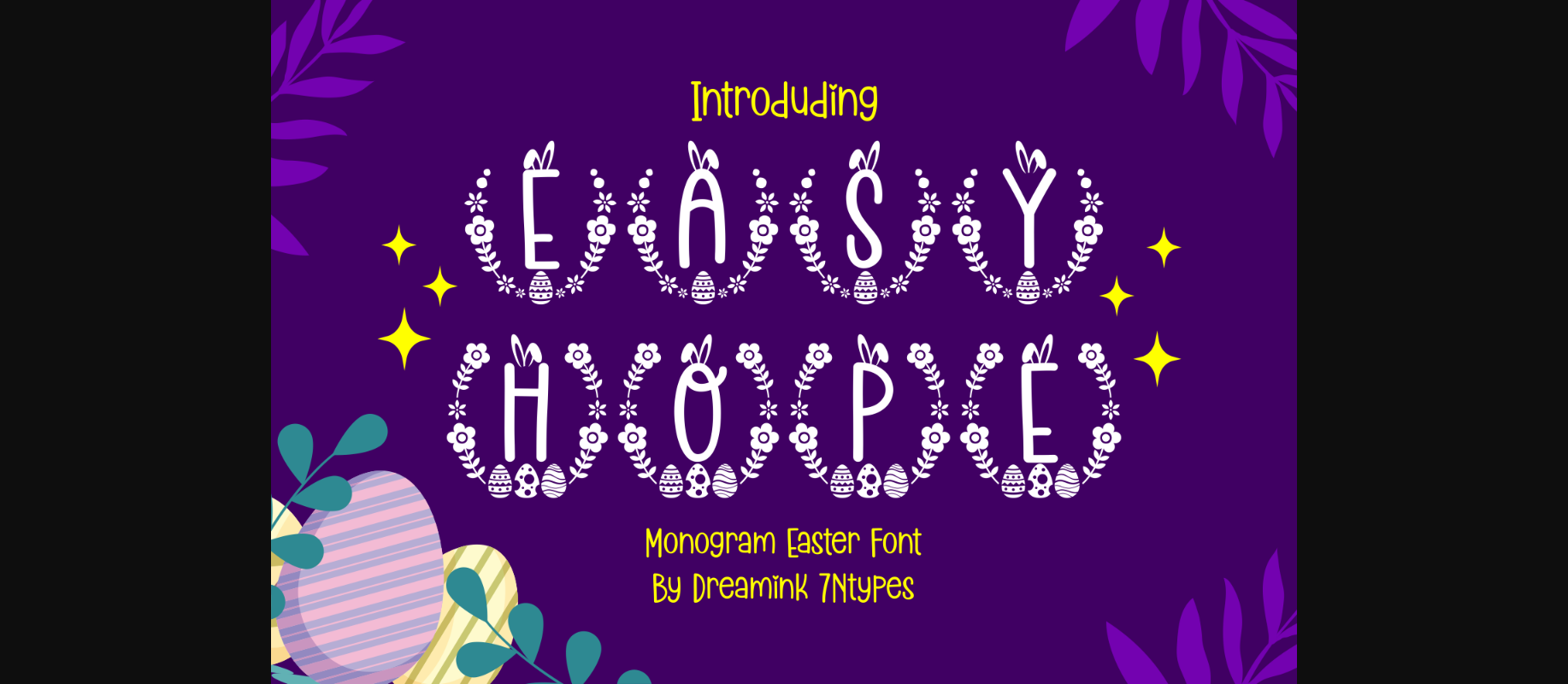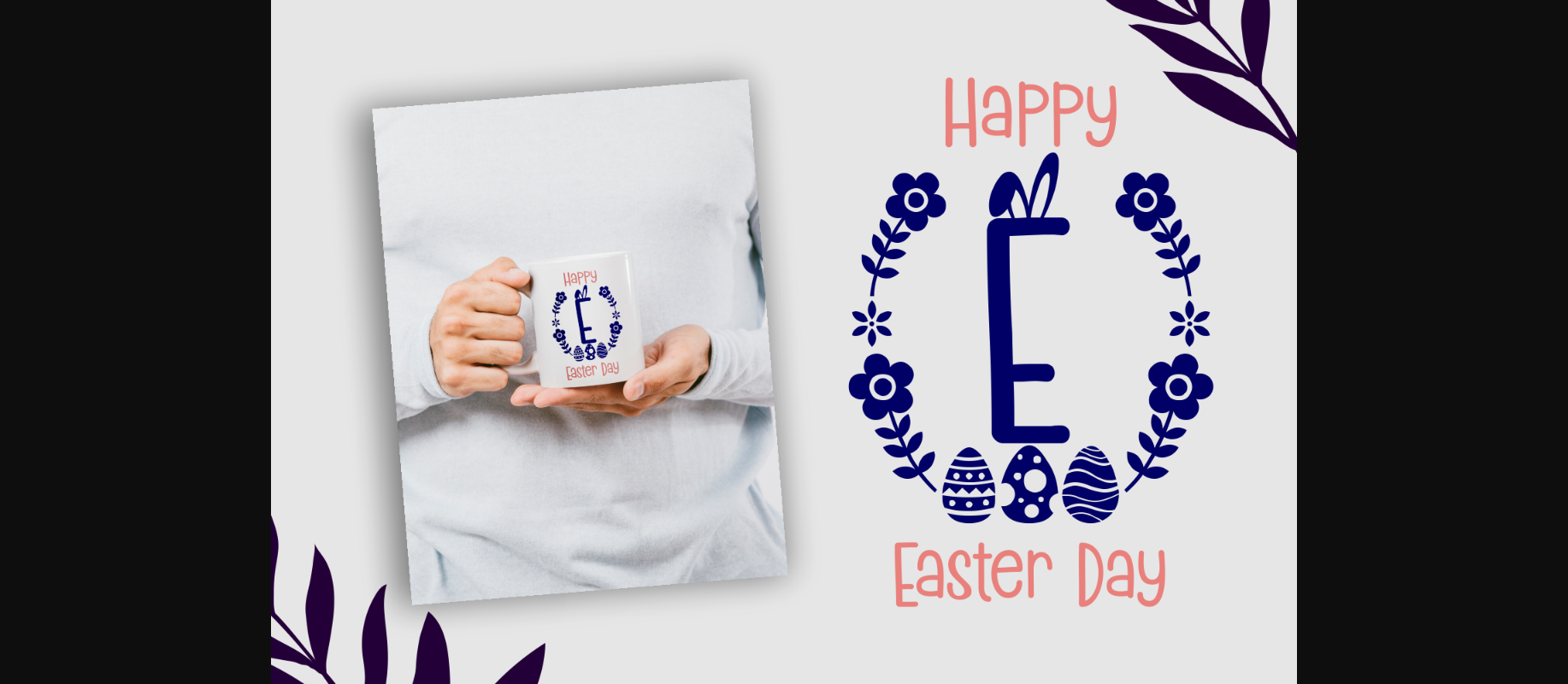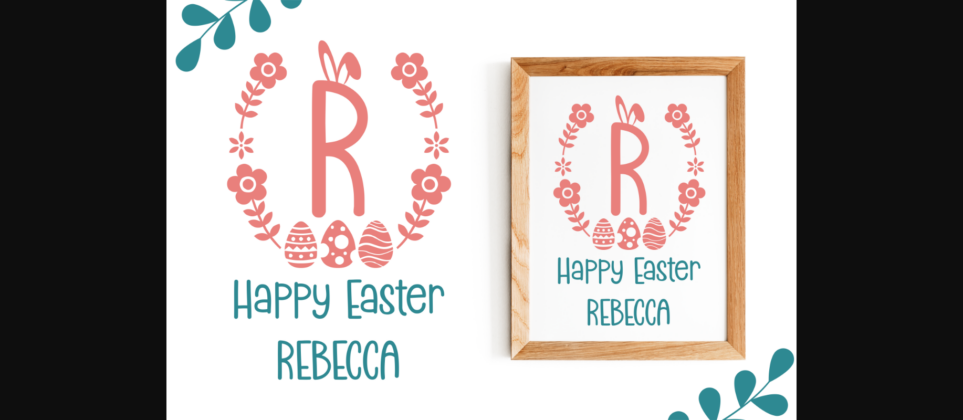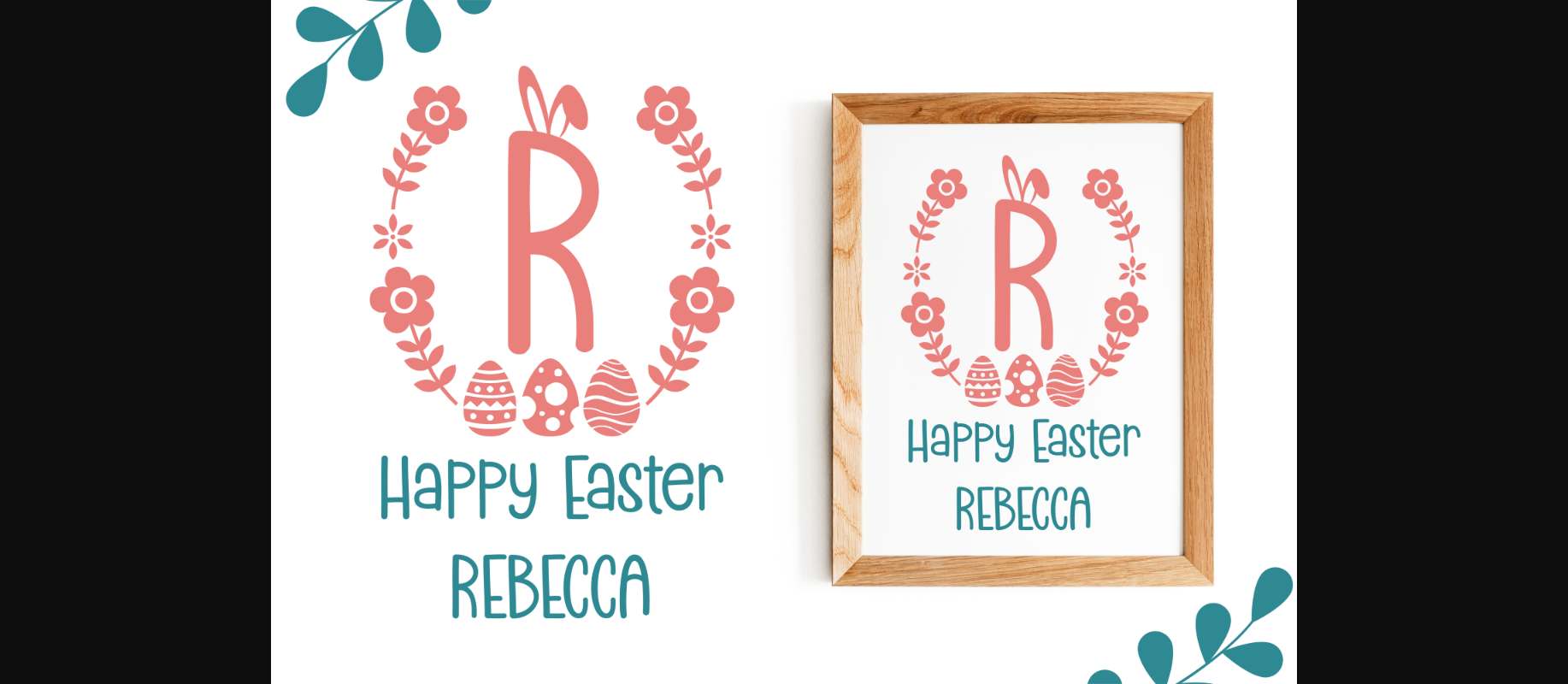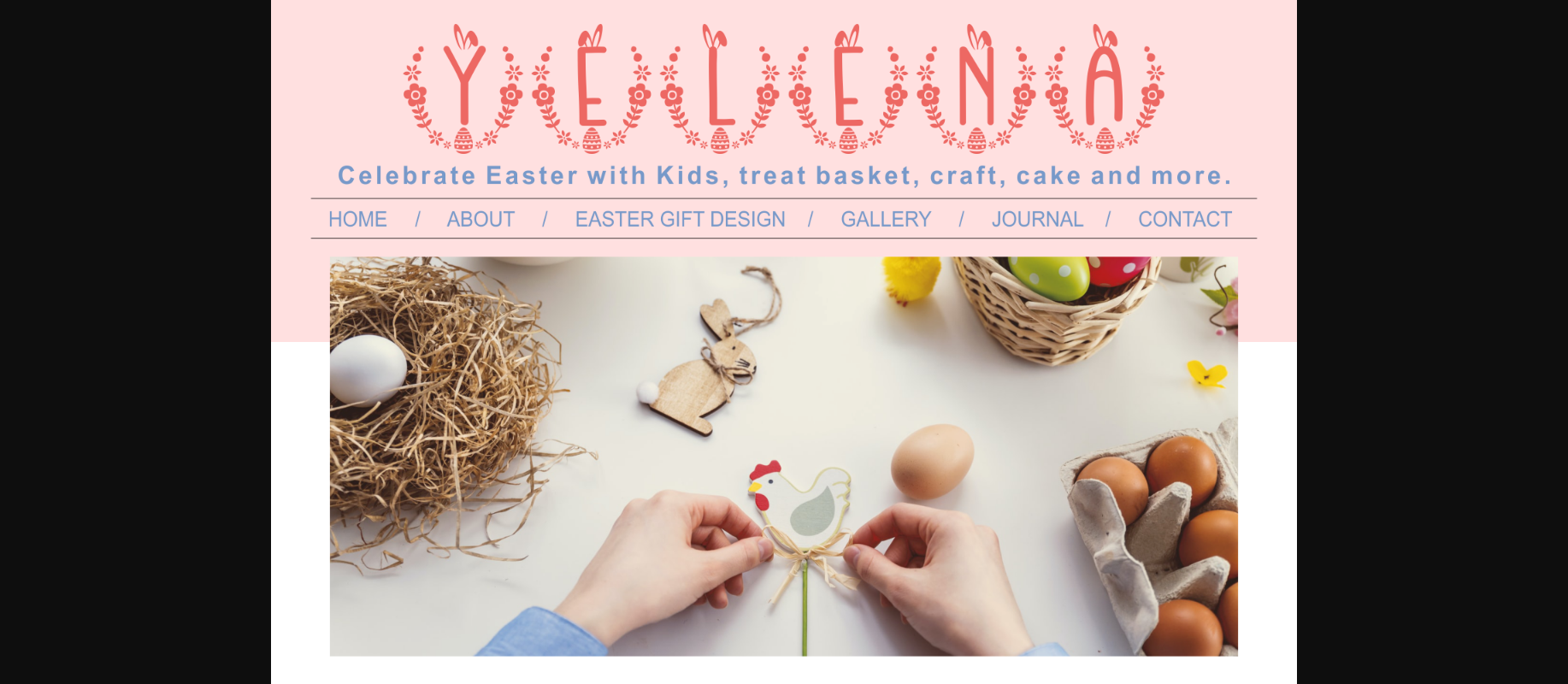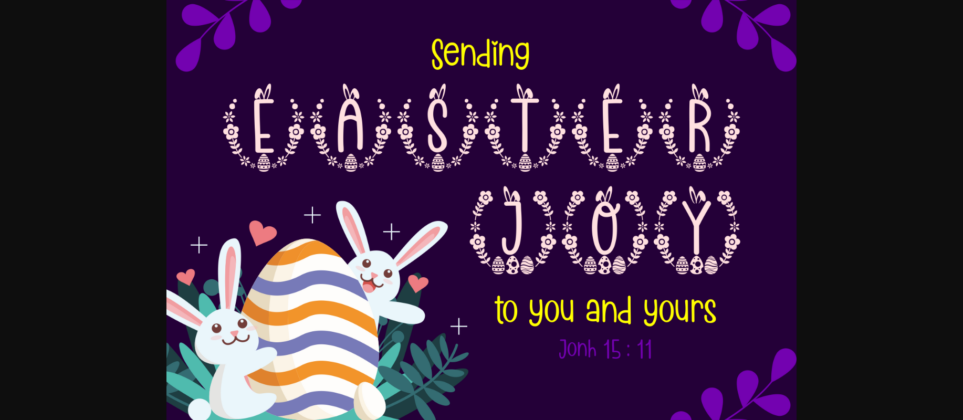
Easy Hope Font
About Easy Hope Font
Easy Hope is a cute and quirky decorative font. It is ideal for holiday-themed greeting cards and for any crafting project that requires a friendly touch.